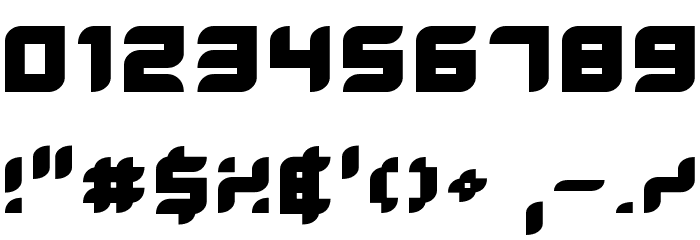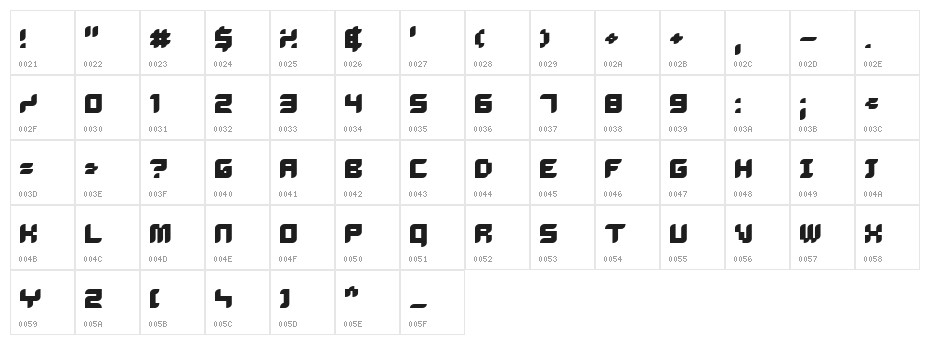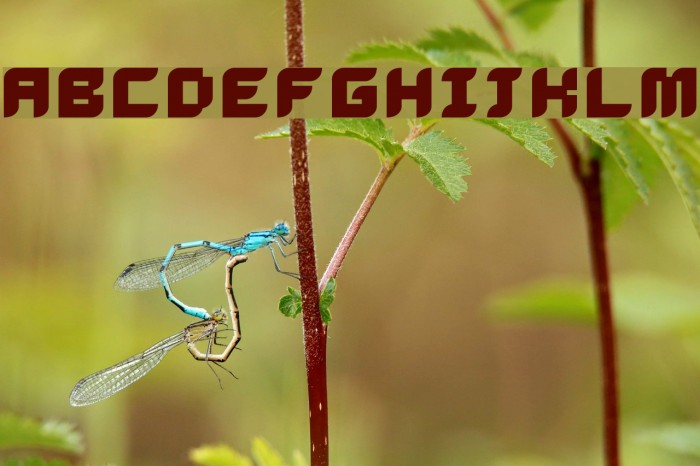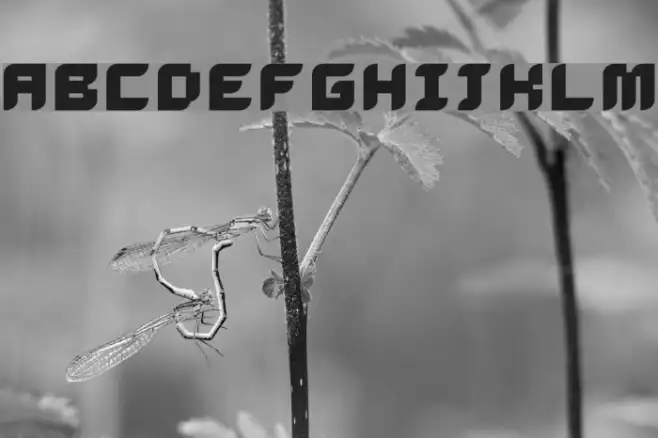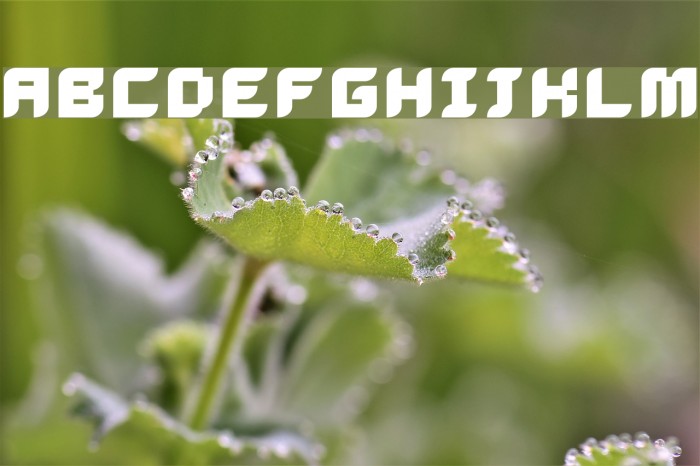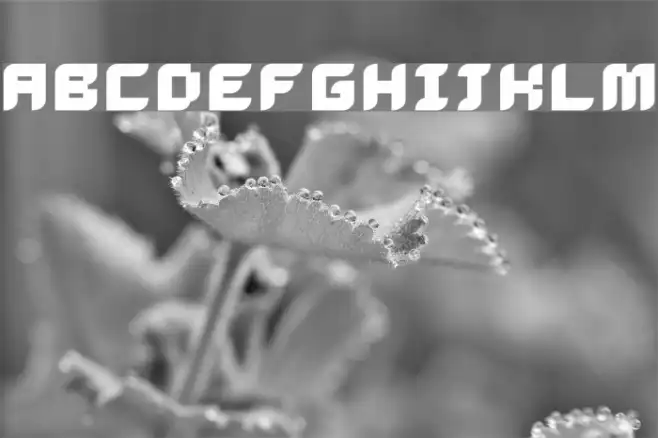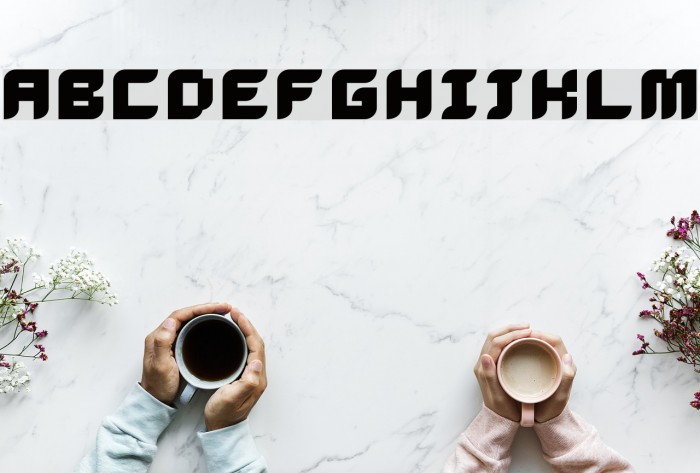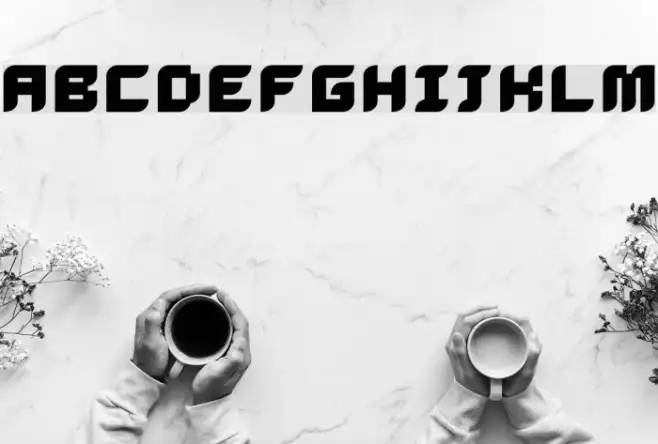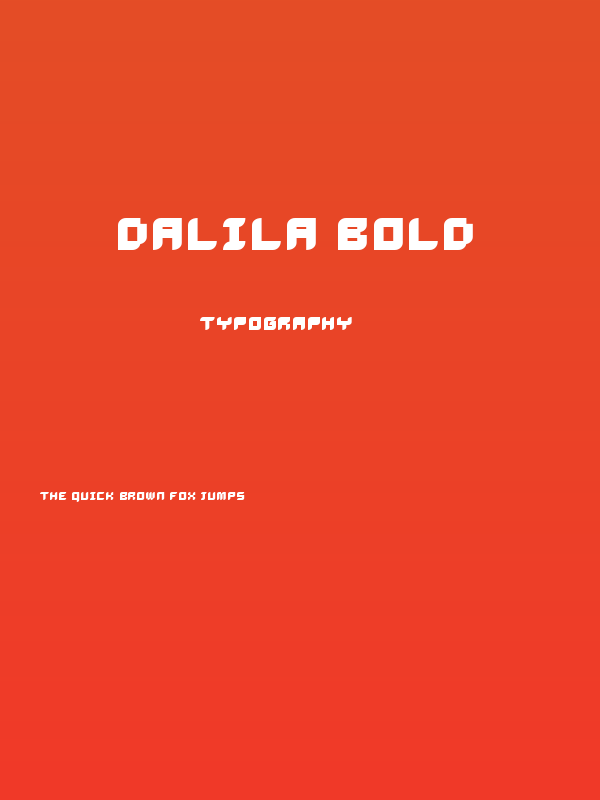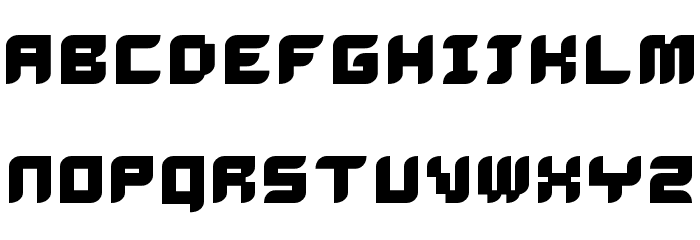
Dalila Bold Font
Dalila Bold Description
This font features a bold and geometric design with a strong presence. The characters are constructed with thick, uniform strokes that create a sense of stability and modernity. The angular edges and block-like forms give it a futuristic and industrial feel. The uppercase and lowercase letters maintain a consistent style, with the lowercase mirroring the uppercase in structure. The numerals are equally bold and maintain the geometric aesthetic, ensuring readability and impact. Special characters are designed to match the overall style, providing a cohesive look across all glyphs.
| Proposed Projects | Ideal for branding, posters, and headlines where a strong, modern impact is desired. |